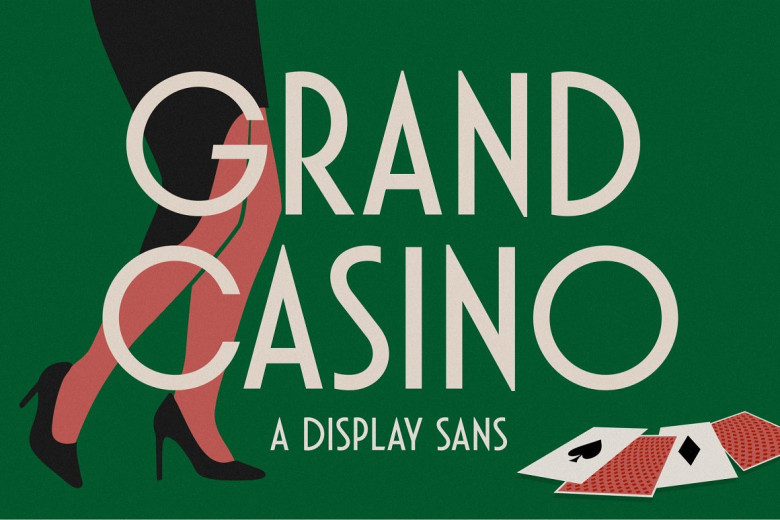
Grand Casino Font
Grand Casino Sans Serif Font is an uppercase sans serif typeface featuring minimalistic yet vintage aesthetic. Perfect for use in editorial projects, display logo design projects, wedding invitations, product packaging design for clothing lines or magazine headers or simply as text overlaid onto images,
Grand Casino can be found everywhere from wedding invitations to editorial projects to display logo design projects and wedding invitations – Grand Casino is a versatile font suitable for use across many applications and media formats.
Grand Casino Display Sans Font